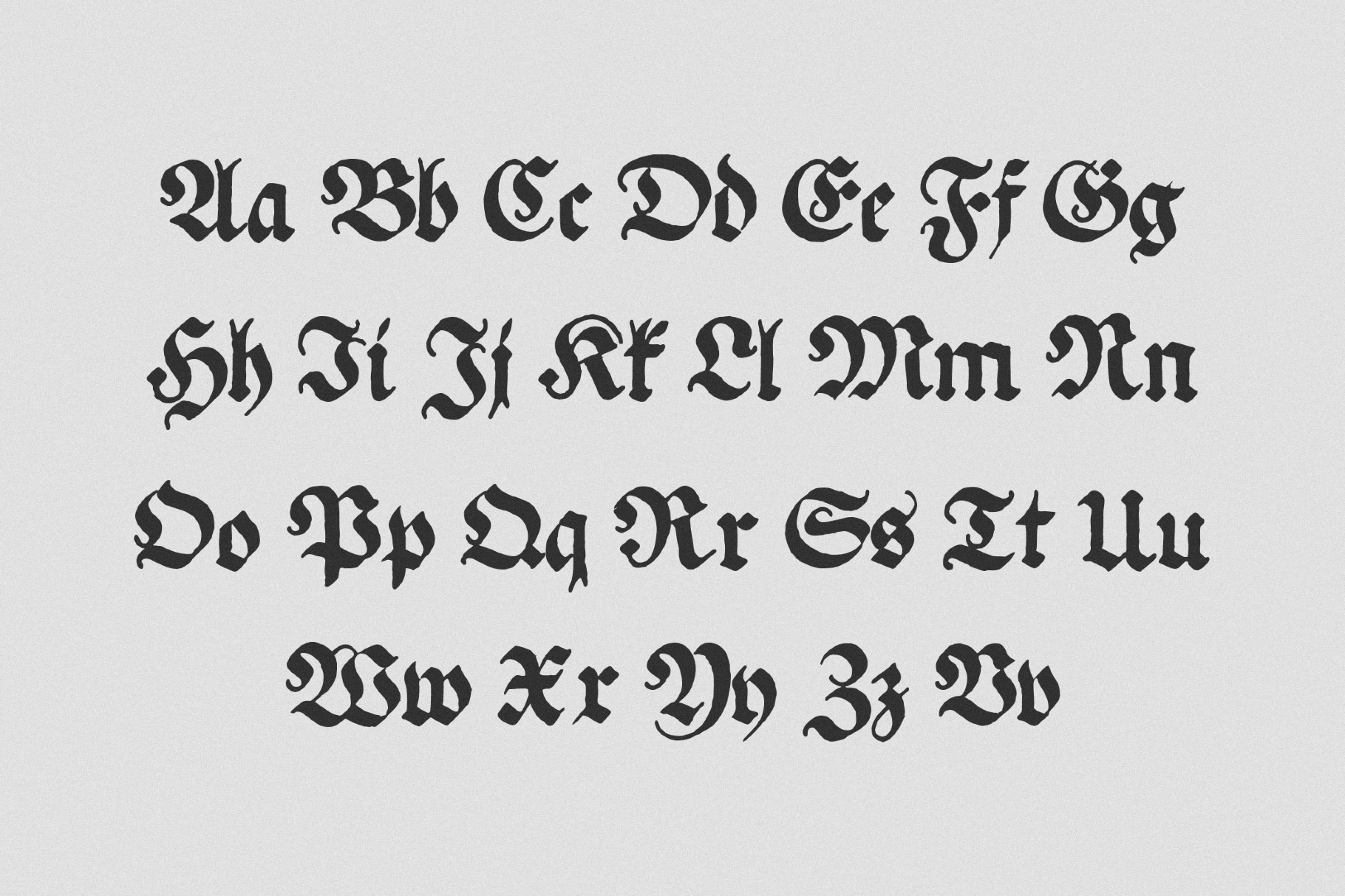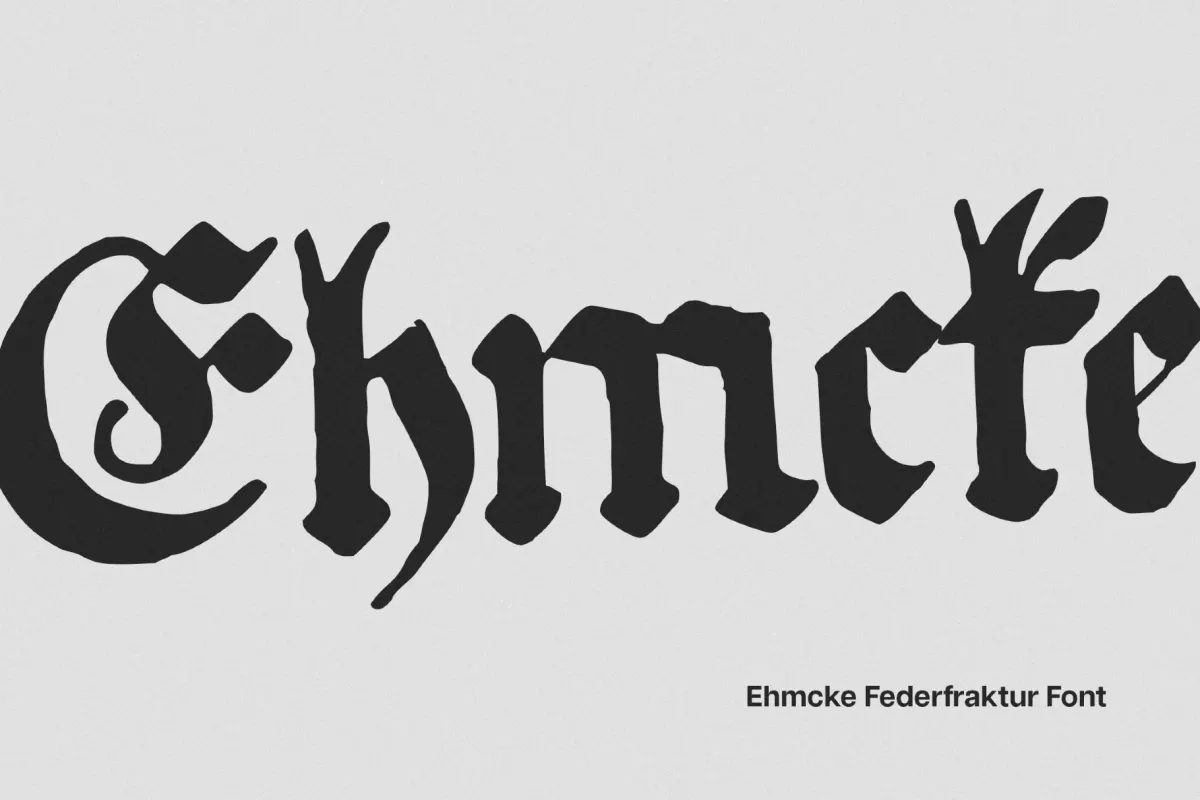
Ehmcke Federfraktur | Blackletter Font
Ehmcke Federfraktur is a broad-nib German blackletter with a copybook pedigree. Strong verticals, reciprocating curves, and crisp pen-rotation corners give it a steady, upright visual that reads cleanly at display sizes. Calligraphic warmth pairs with metal-type sharpness, ensuring ceremonial yet controlled headlines.
Features and technical notes: uppercase and lowercase letters, numerals, punctuation and symbols, multilingual support, and ligatures. The design follows lettering from a 1941 German writing booklet, written with a broad fountain pen to demonstrate the lineage of blackletter in metal type.